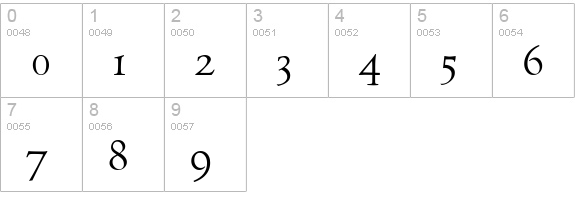
Prospero Smallcaps Font Details
Prospero Smallcaps font exudes elegance and sophistication with its delicate letterforms and intricate details. This timeless typeface is perfect for adding a touch of class to any project, whether it be invitations, branding, or editorial designs. The small caps feature adds a touch of refinement, making text stand out in a subtle yet impactful way. What's even better is that Prospero Smallcaps font is available for free download at FontsMarket.com. Now you can elevate your designs without breaking the bank. Don't miss out on this opportunity to add a touch of luxury to your work with the effortlessly stylish Prospero Smallcaps font.